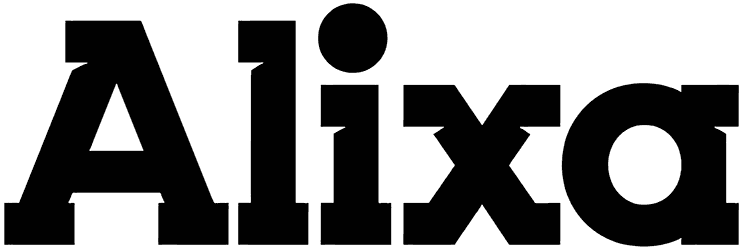
Slab Camp Font
Been staring at Slab Camp for a while now, and still don’t know what to admire about it, the creative naming or the playfulness of it. Or maybe both? You see, it’s not that common for a slab serif font to be so childish in spirit, but against all odds, that’s what’s happening here.
That’s pretty handy though, at least for designing basketball game posters for kids, animation logos, and in the meantime, the hell with the missing numbers and lowercase.
Designed by: Kong Font